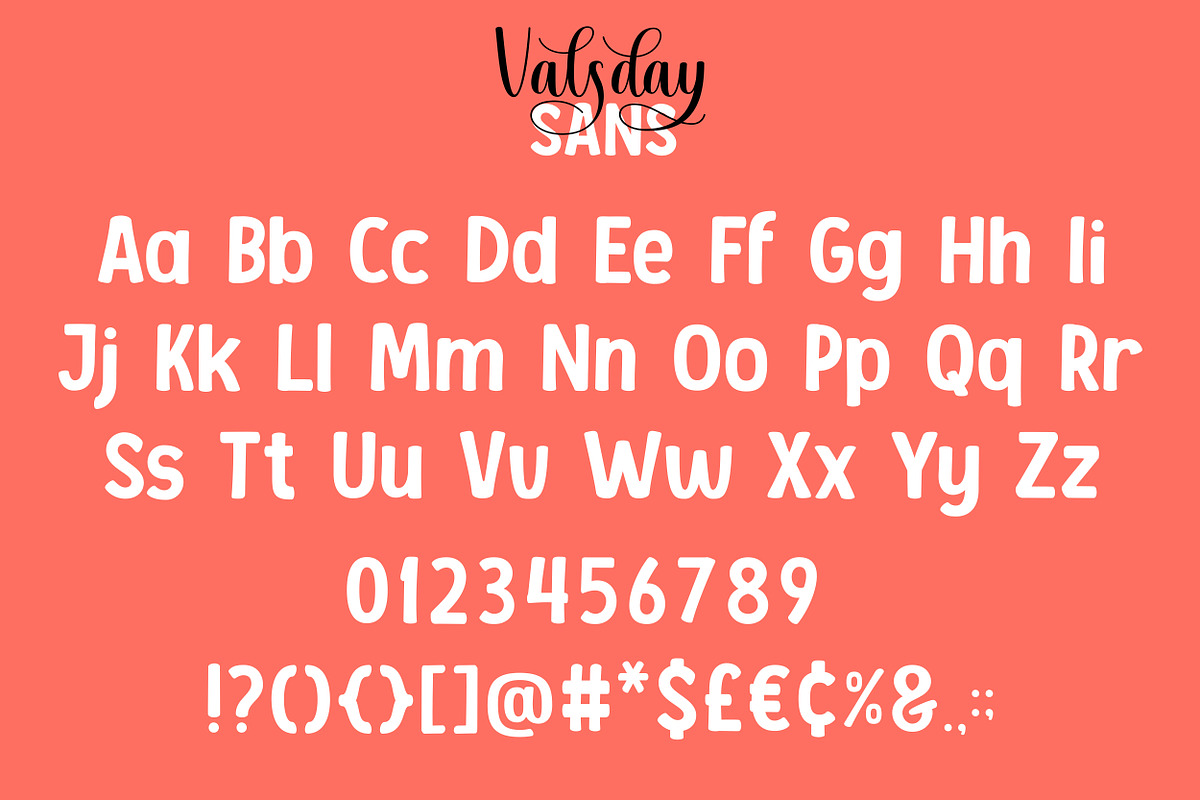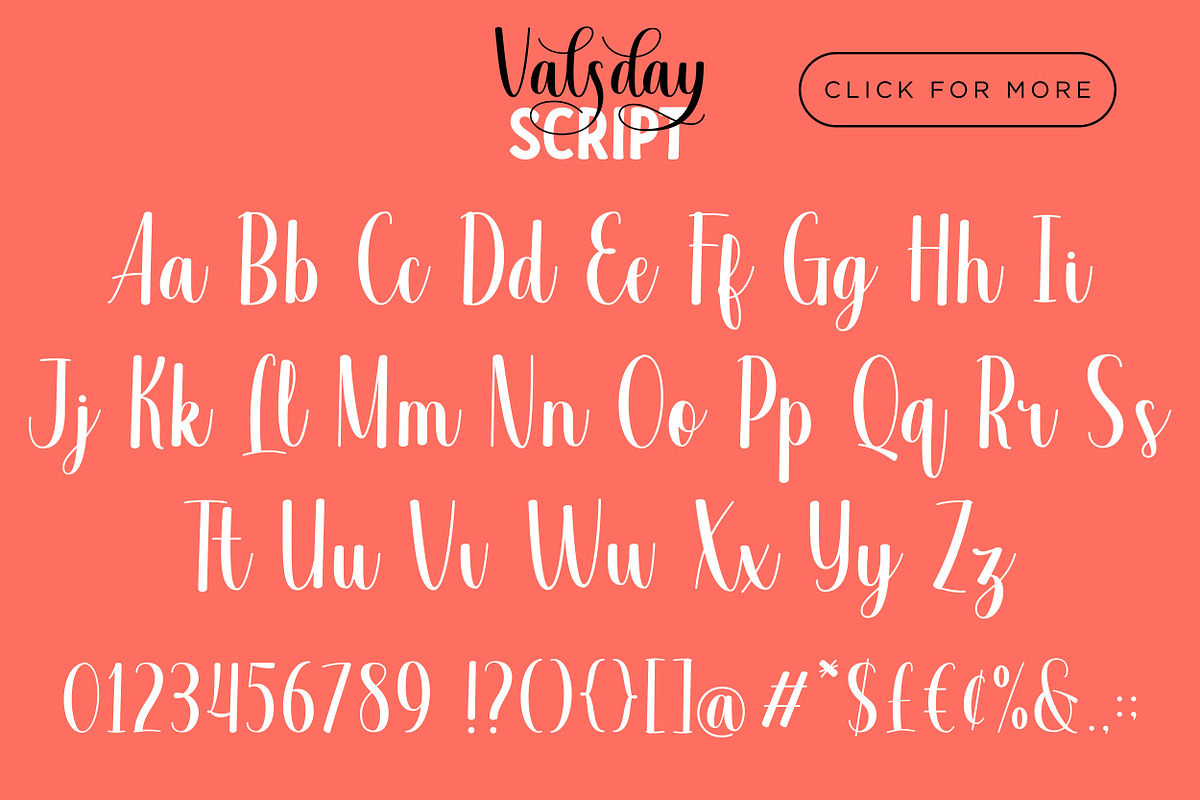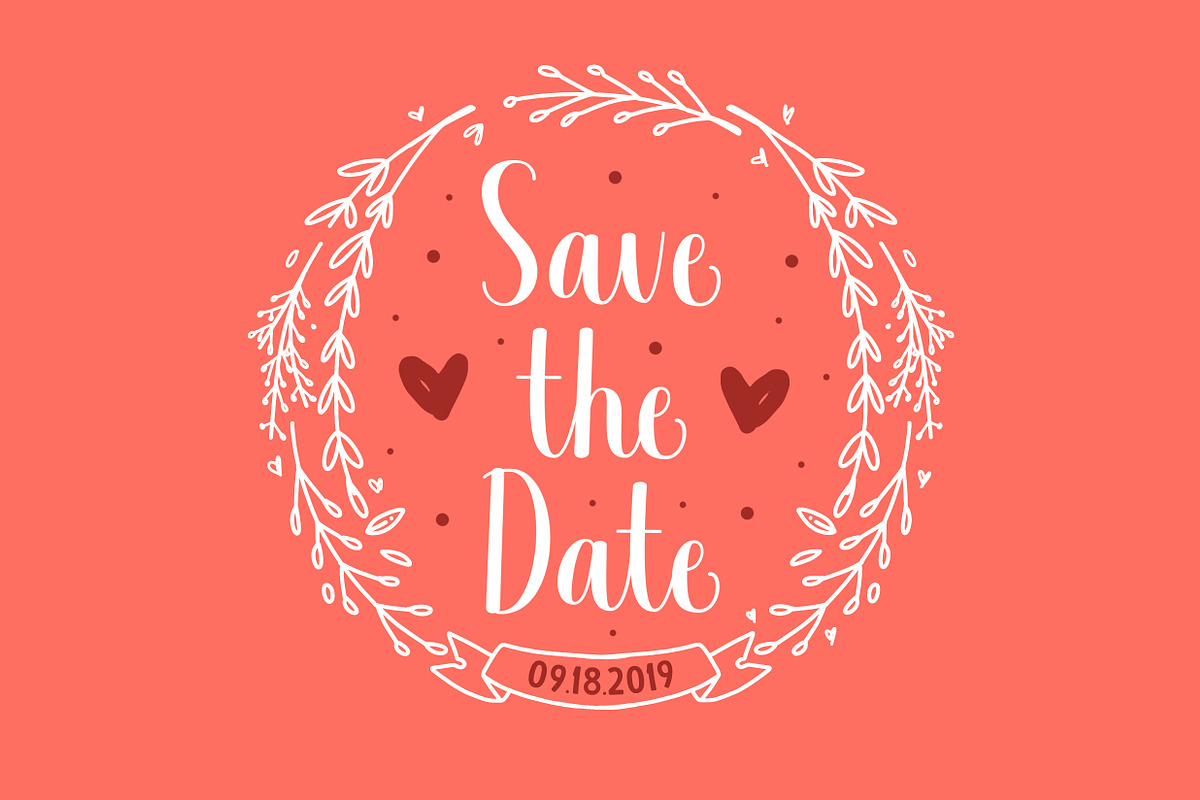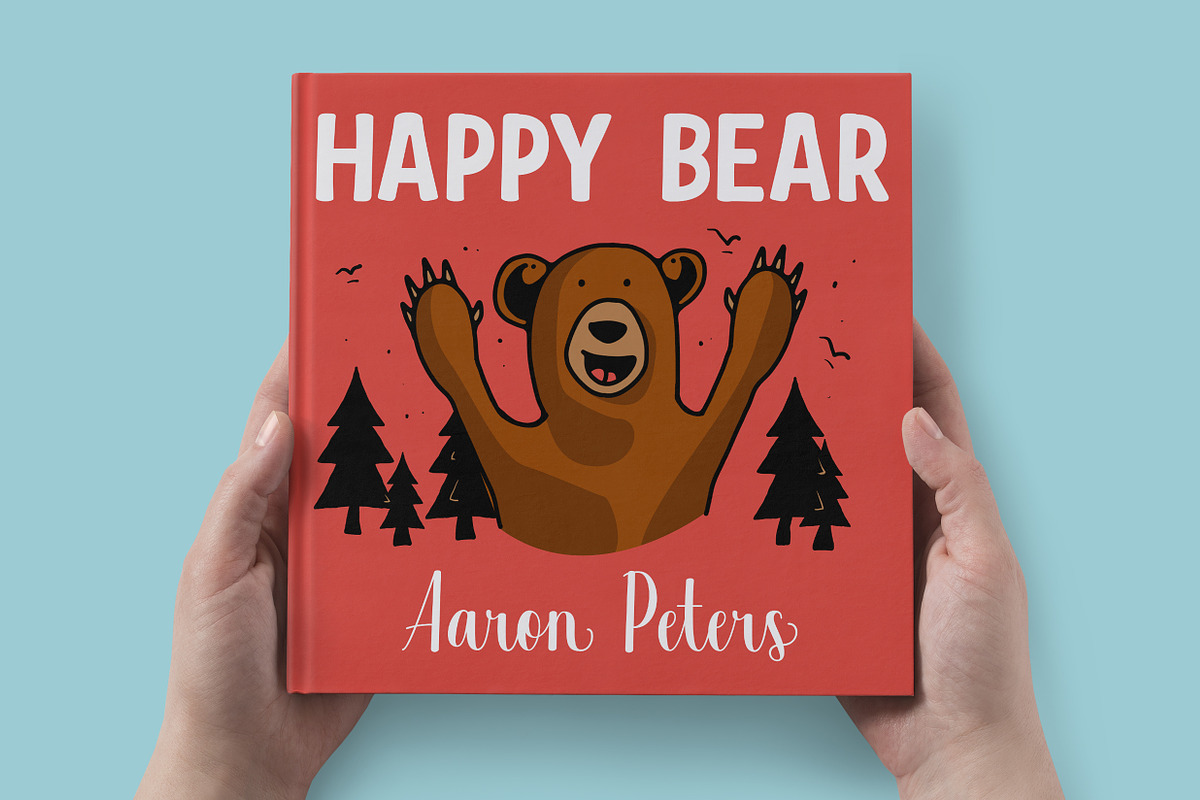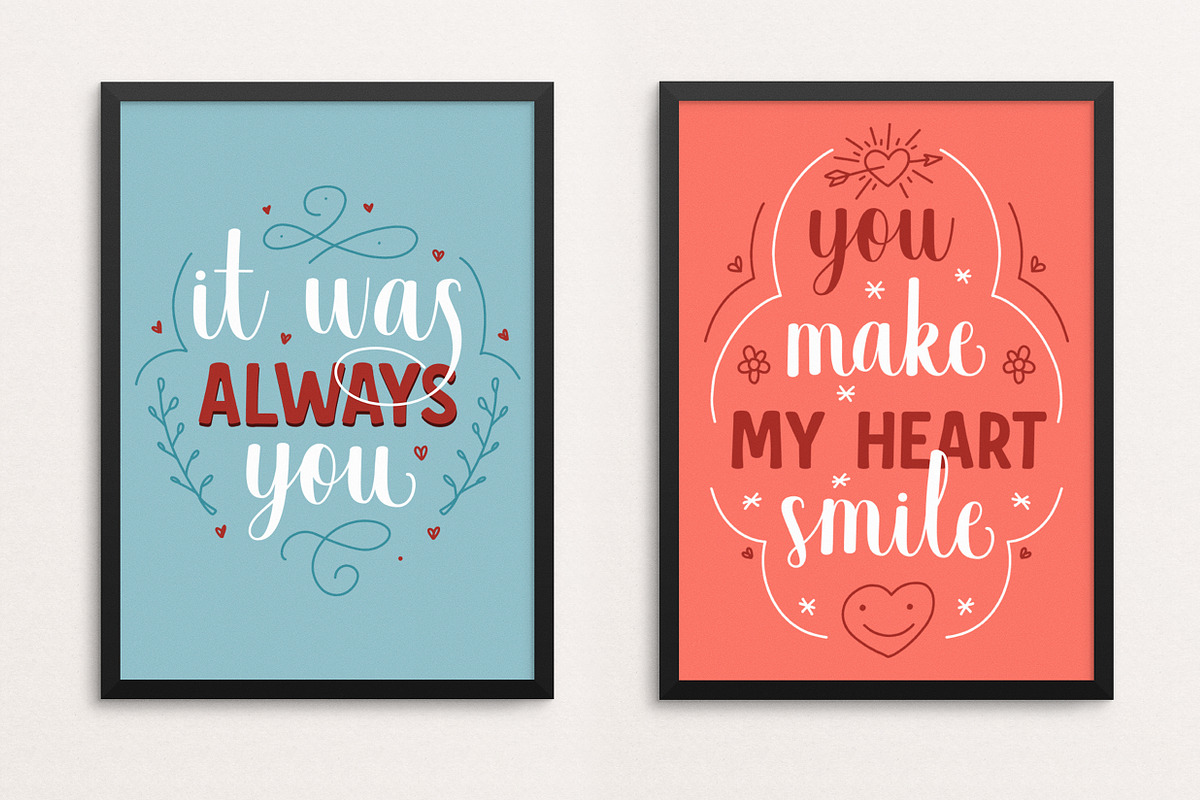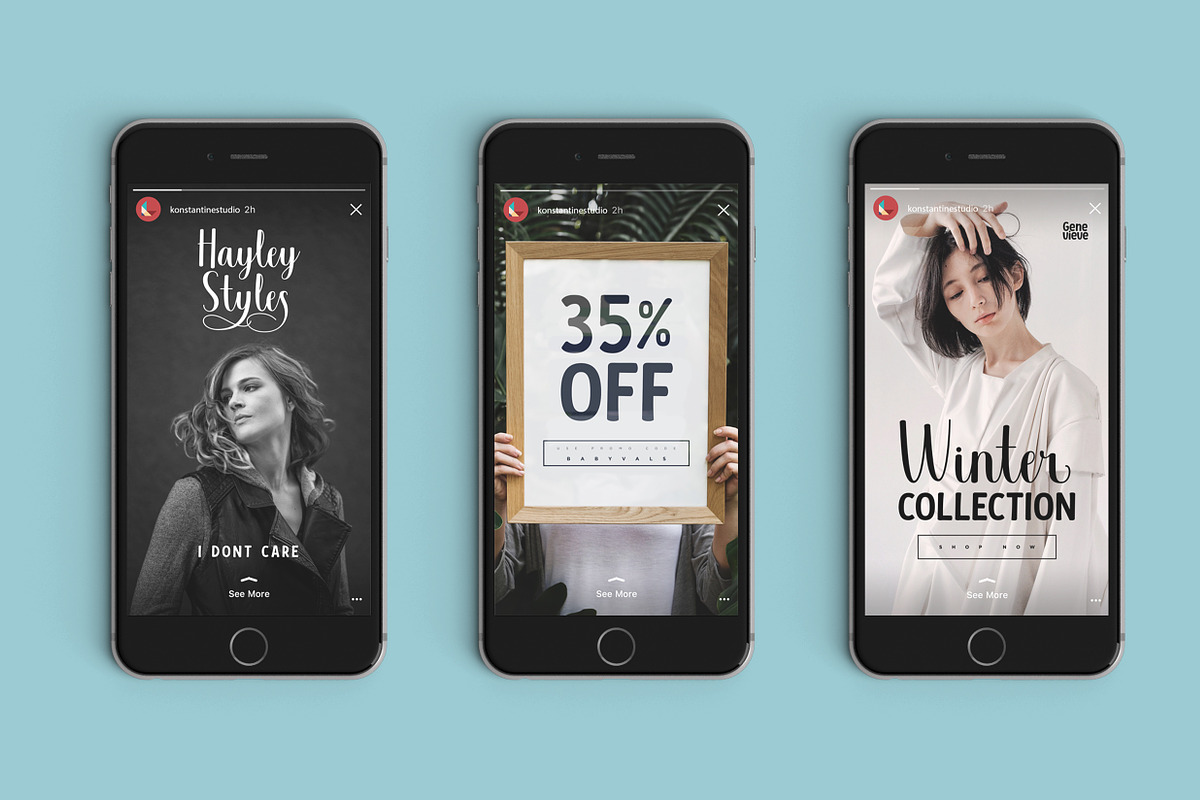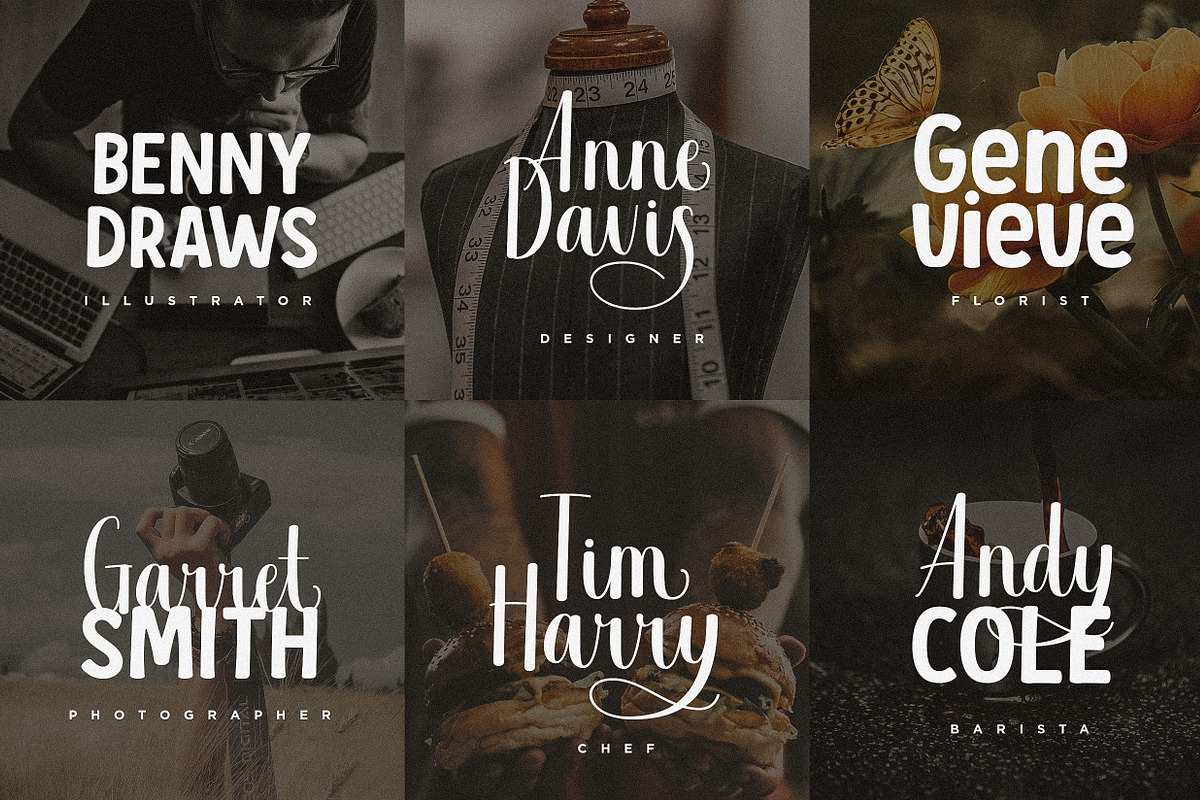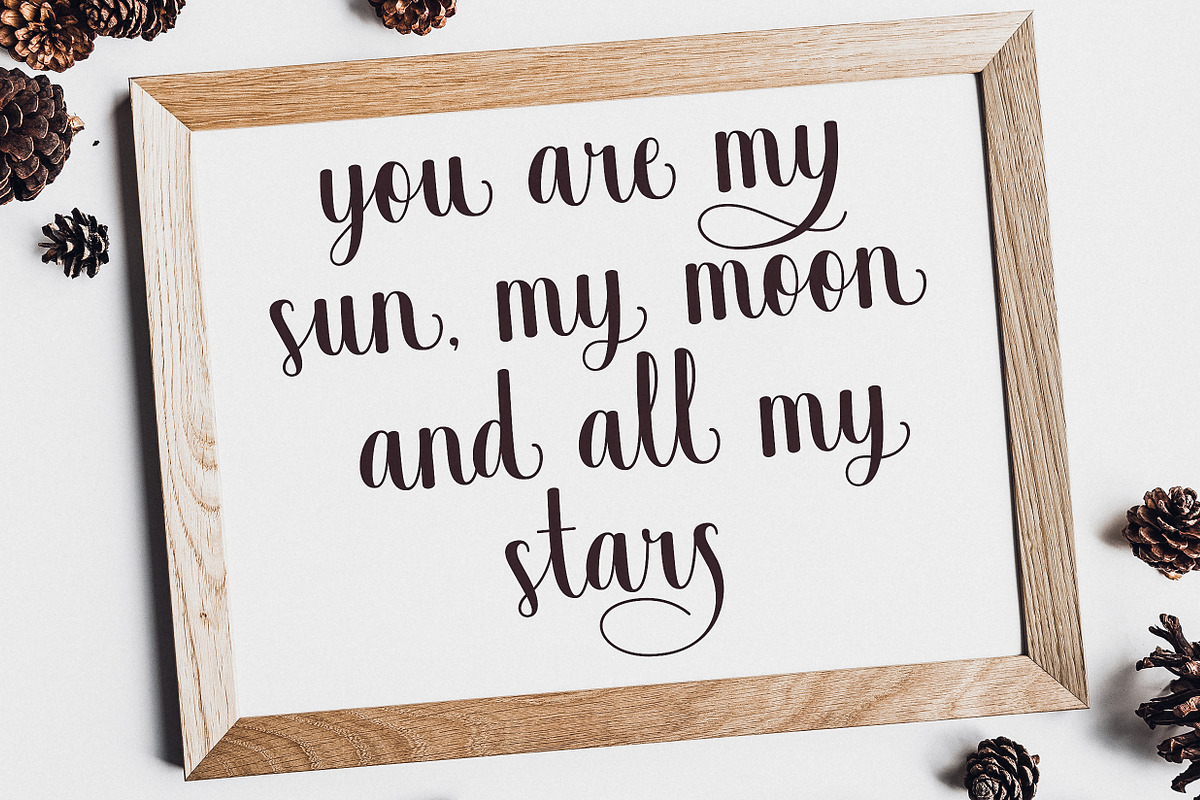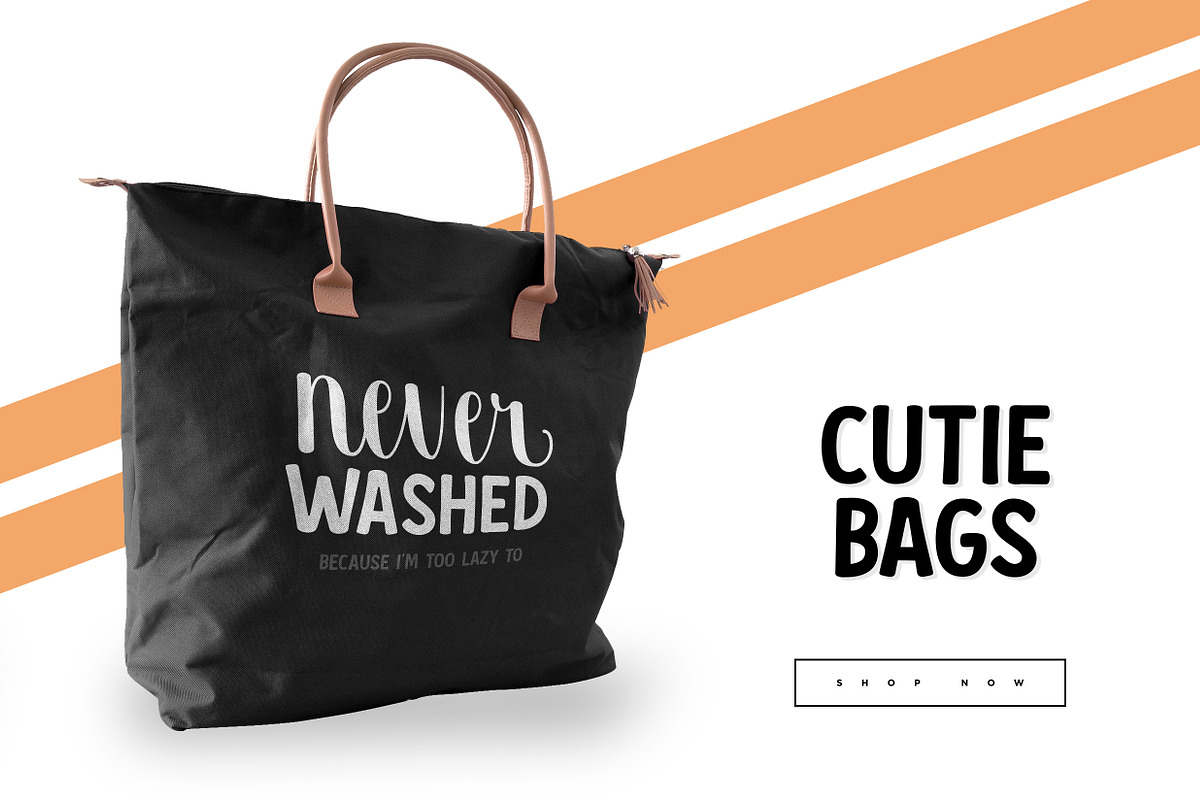
Valsday - Script and Sans Serif
Happy new year! wish you all the best for this 2019. We wish we can provide you a better stuff for this 2019. And the day for the first drop in this new year has come. Please welcome, Valsday
A clean and swashy script typeface with a beautiful flow in every move. Inspired by the modern calligraphic and lettering style to express the OG love that carefully crafted and done by human hand.
Packed up with the bold sans serif version to make it as a good couple. Cause you know the best couple are inseparable.
- Valsday Script
- Valsday Sans